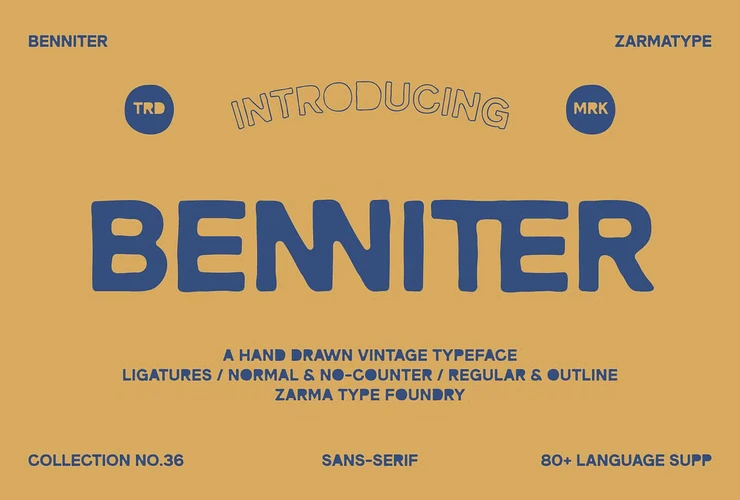
Embrace Nostalgia with “Benniter” – The Rough Hand-Drawn Font
Benniter by Zarma Type Foundry is a uniquely crafted hand-drawn sans serif font that brings a nostalgic retro vibe to your design projects. With its rough textures and authentic hand-drawn appearance, Benniter is the perfect choice for designers seeking to add a personal and organic touch to their work. Available in both regular and outline styles, this versatile typeface is ideal for branding, vintage posters, and a wide range of creative ventures.
Why Choose “Benniter” for Your Next Project?
1. Rough Hand-Drawn Appeal Benniter’s rough hand-drawn style gives it a distinctive, authentic look that stands out in any design. The font’s textured appearance adds depth and character, making it an excellent choice for projects that require a vintage, handcrafted feel.
2. Versatility with Regular and Outline Styles With both regular and outline versions available, Benniter offers versatility for your creative needs. Use the regular style for a bold, impactful look, or the outline version for a more subtle, refined touch. The combination of these styles allows for creative layering and unique design possibilities.
3. Unique Ligatures and No Counter Letters Benniter includes a variety of unique ligatures and lowercase letters with no counters, enhancing its usability and creative potential. These features give your text a more dynamic and customized appearance, perfect for creating eye-catching, memorable designs.
4. Extensive Language Support With over 400+ glyphs and support for more than 85 languages, Benniter is designed to meet the needs of global projects. Its extended Latin character set ensures that your designs can reach a broad audience, making it an excellent choice for international branding and marketing campaigns.
5. Ideal for Vintage and Nostalgic Designs Benniter’s timeless appeal makes it the perfect font for vintage-inspired designs. Whether you’re creating retro posters, branding materials, or any project that requires a nostalgic touch, Benniter delivers the charm and character you need to make your work stand out.
Benniter by Zarma Type Foundry is more than just a font—it’s a journey back in time. Its rough, hand-drawn style, combined with unique features and extensive language support, makes it an essential tool for designers looking to create authentic, nostalgic designs. Whether you’re working on branding, posters, or any creative project, Benniter’s rough textures and retro feel will help you achieve a truly memorable result.